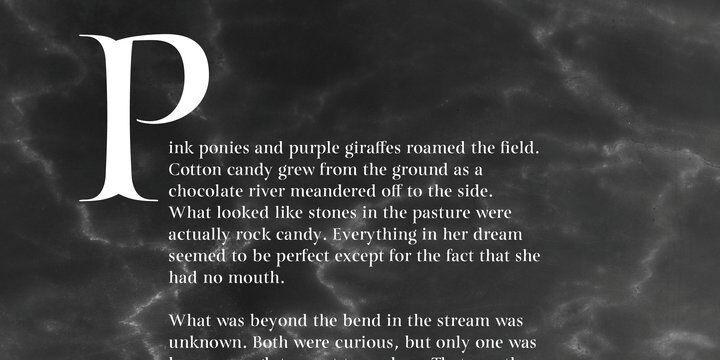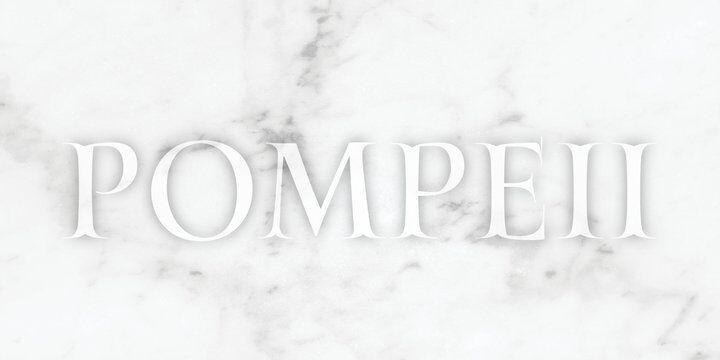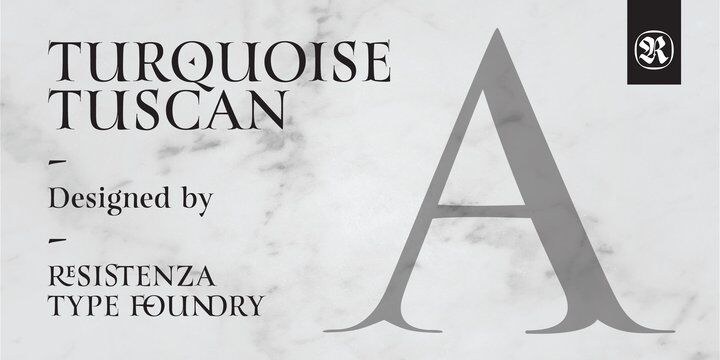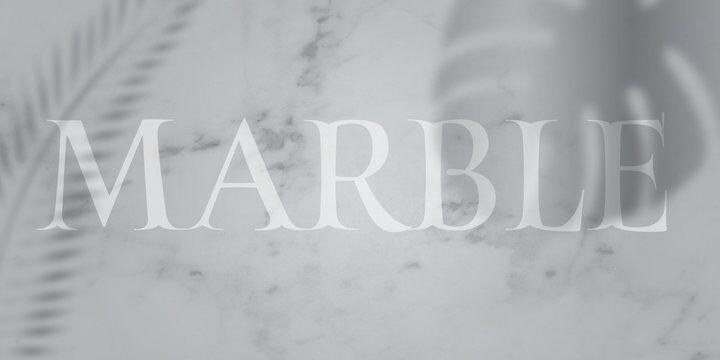
Turquoise Tuscan Font
A new Version of Turquoise Roman Capitals. With specials Tuscan Serifs to add more engraving feel. Turquoise Tuscan is full of ligatures and awesome alternates. Perfect for big headlines, logos, branding and wine labels.
Turquoise Tuscan Font is a Serif Fonts font that brings a professional and versatile look to your projects. A new Version of Turquoise Roman Capitals.